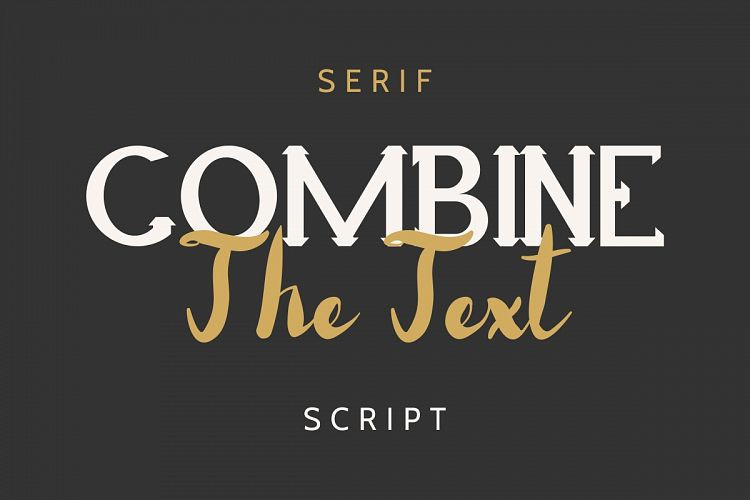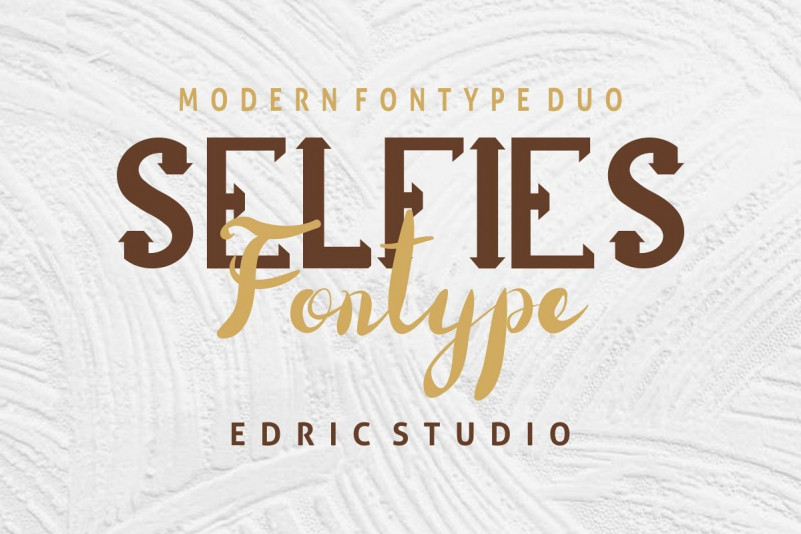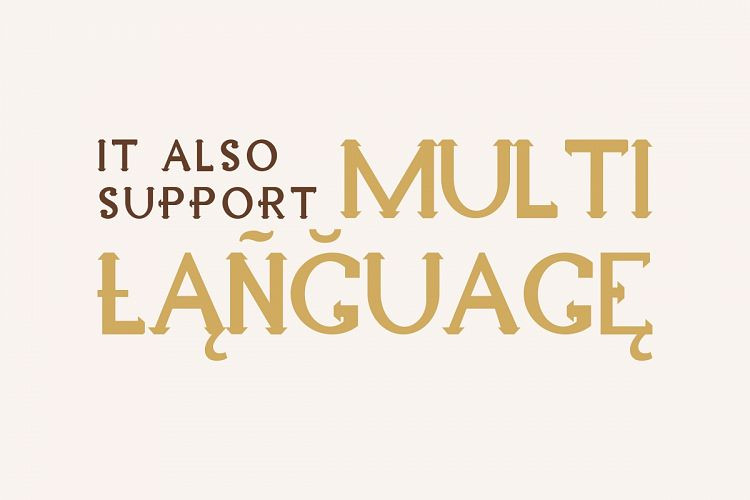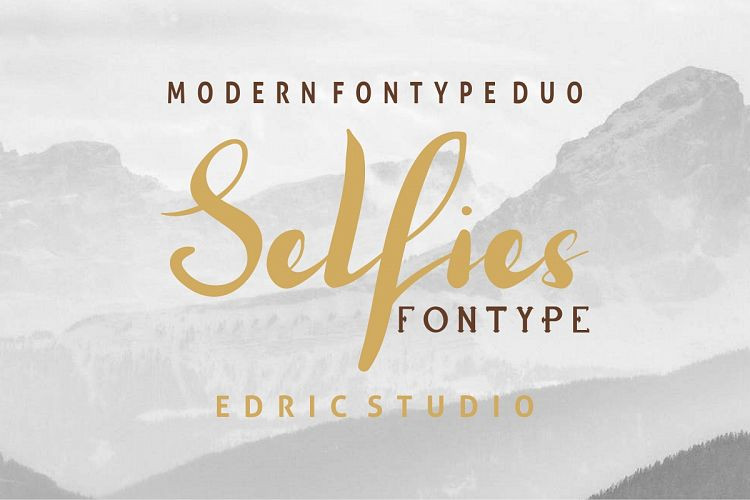
Selfies Font
Hi Everyone! Introducing our newest font : Selfies ! This is a new modern font duo : script handwritten and Serif Display font. It has a fresh, elegant, and exclusive glyph.This stylish font is a sophisticated styling font which will be perfect for branding, logo, photography, flyer headline, movie, invitation, card, signage, brochure etc. There are many industries that is suitable for this font : wedding, boutique, personal brands, real estate, services, law firm etcThis font will Work on PC & Mac with Simple installations. Accessible in the Adobe Illustrator, Adobe Photoshop, Adobe InDesign, even work on Microsoft Word.Purchase with confidence! =)